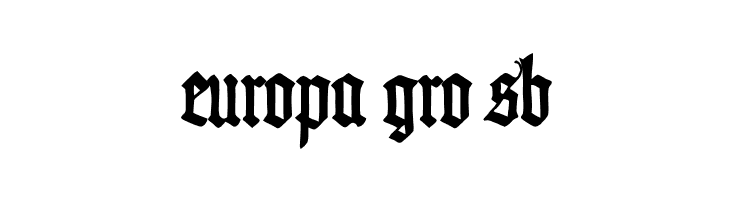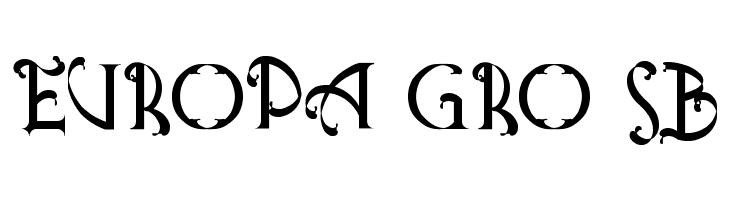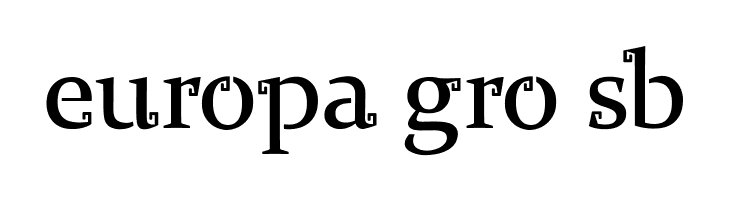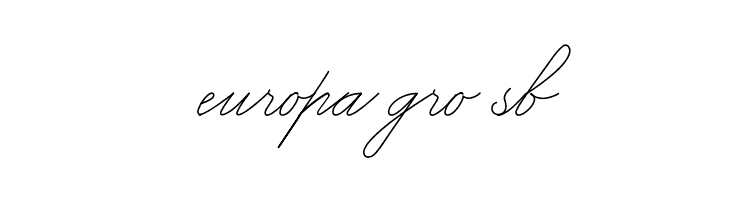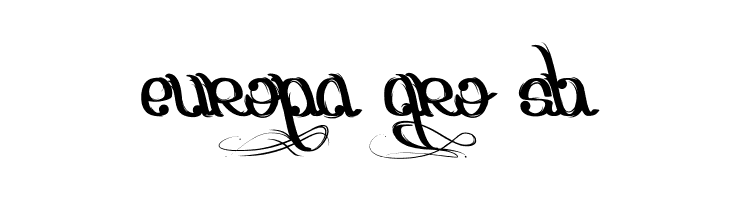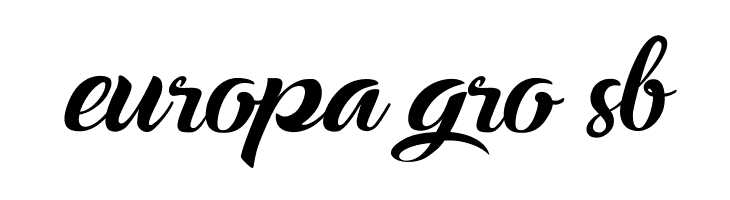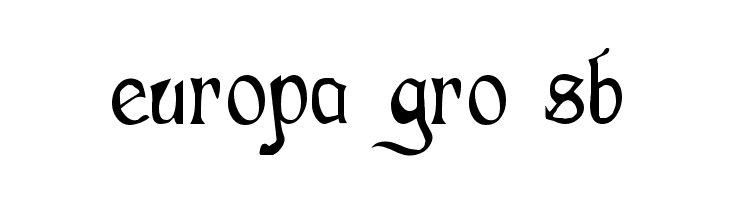
A decorative Gothic-style font with intricate, angular strokes and elaborate serifs.
An ornate, medieval-style decorative font with intricate flourishes.
A decorative serif font with intricate, angular embellishments and a bold, sophisticated style.
An elegant script font with intricate swashes and flowing letterforms.
An ornate script font with intricate swirls and flourishes.
A bold, flowing script font with elegant curves and dynamic style.
An ornate and decorative font with intricate flourishes and embellishments.